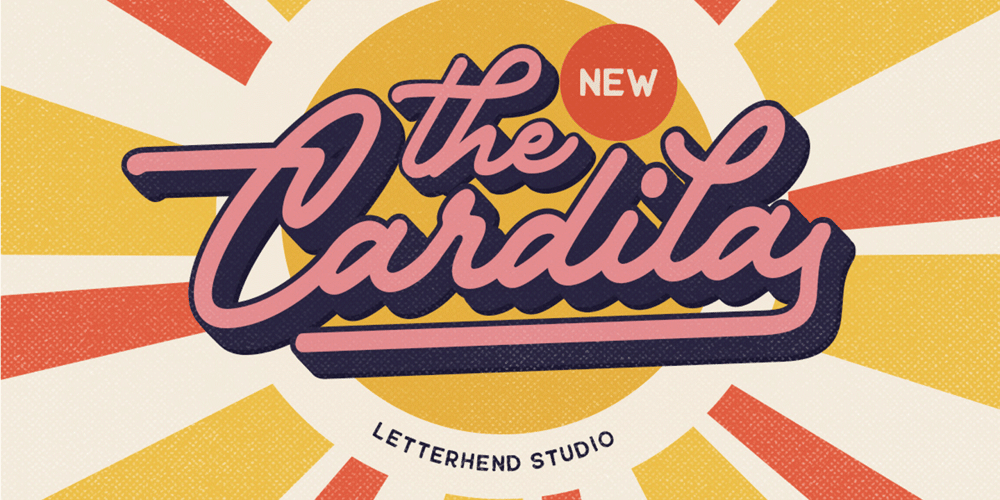
Cardila
Cardila font
Cardila Font Family was designed by Hendry Juanda and published by Letterhend. Cardila contains 2 styles and family package options. The Cardila is a retro bold script which will bring you back to 60s feel. This typeface has the extrude version so you can create your retro effect font in ease. This font perfectly made to be applied especially in logo, and the other various formal forms such as invitations, labels, logos, magazines, books, greeting / wedding cards, packaging, fashion, make up, stationery, novels, labels or any type of advertising purpose.Features : uppercase & lowercase numbers and punctuation multilingual ligatures alternates swashes PUA encoded We highly recommend using a program that supports OpenType features and Glyphs panels like many of Adobe apps and Corel Draw, so you can see and access all Glyph variations.